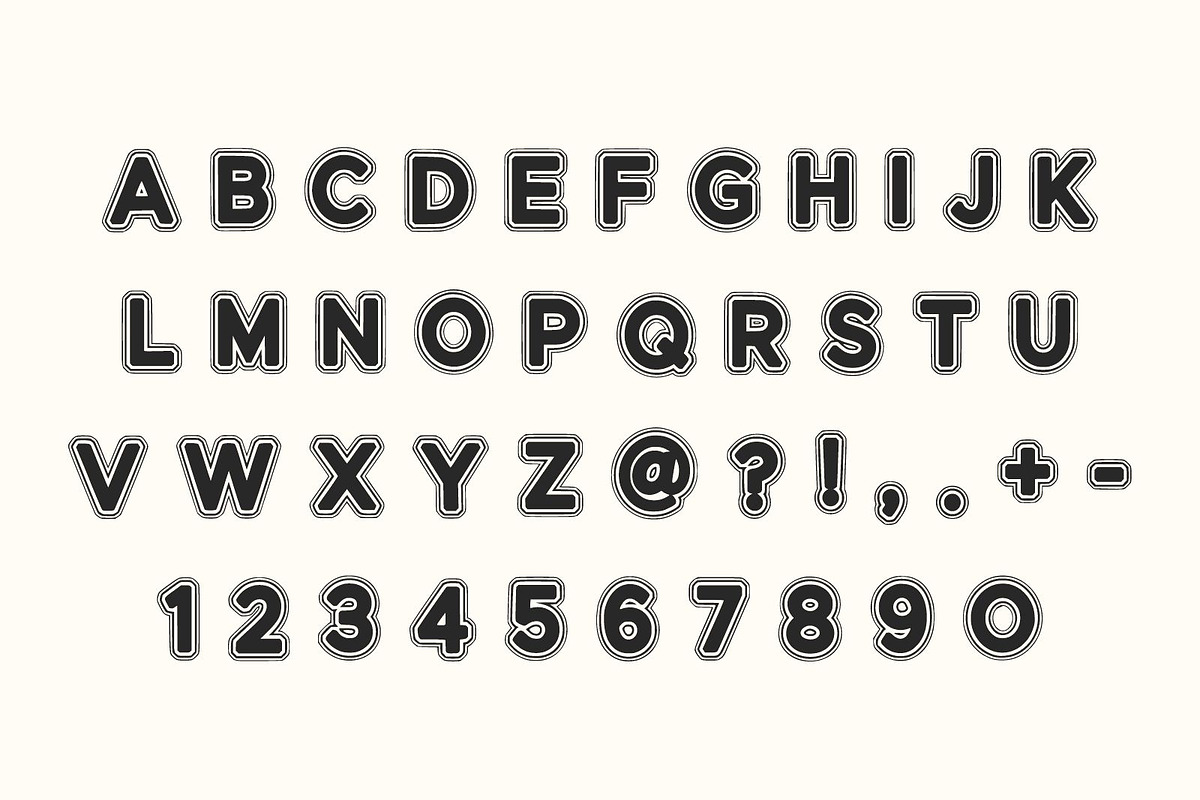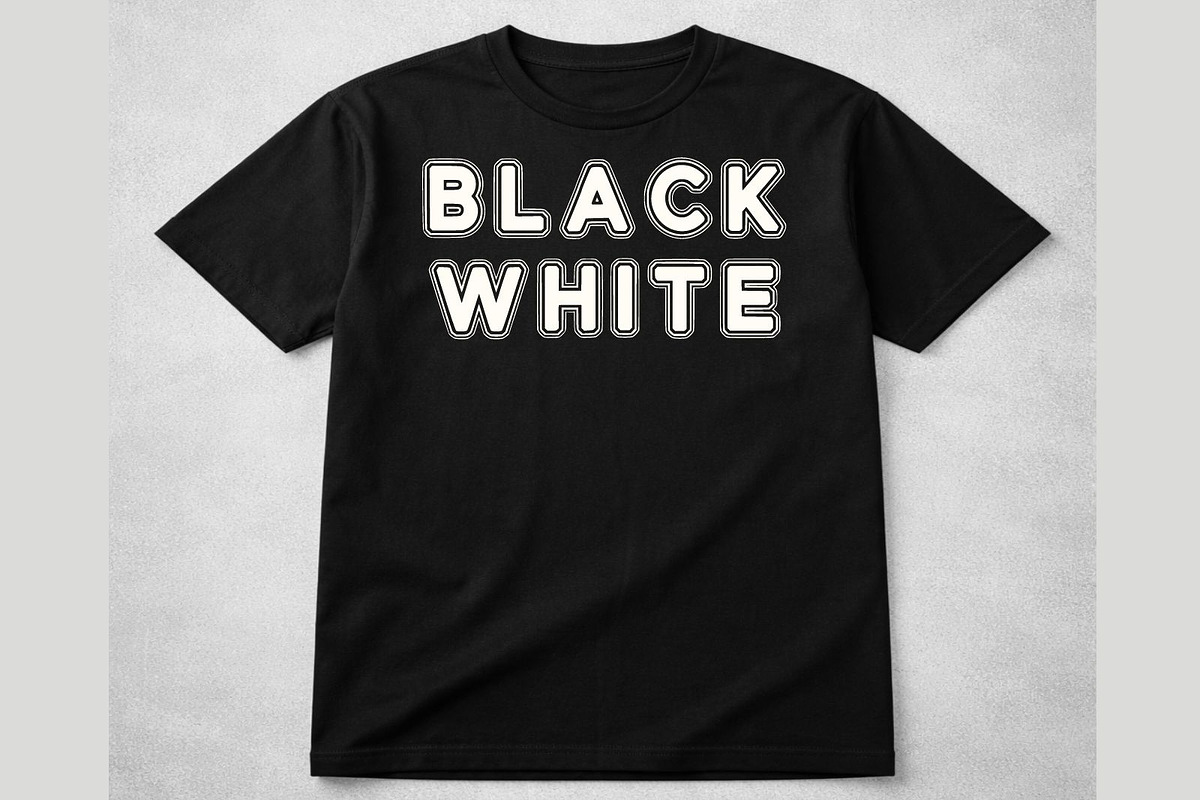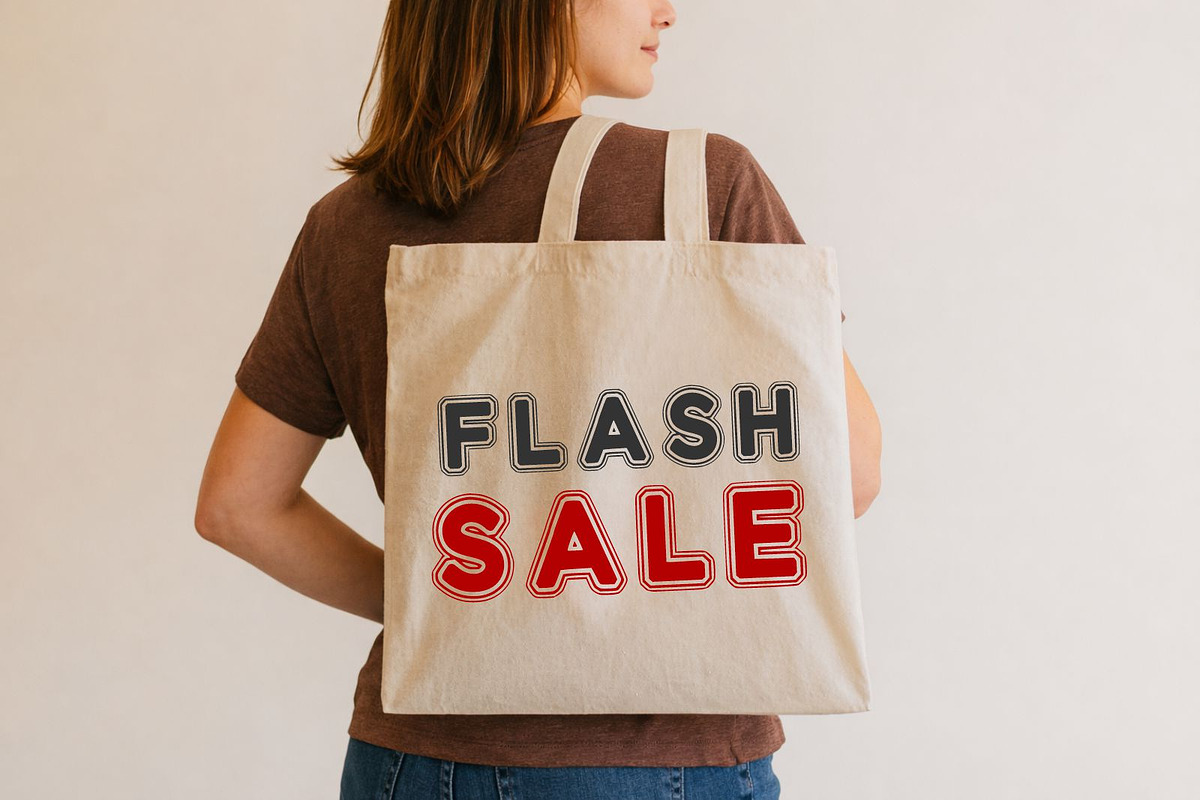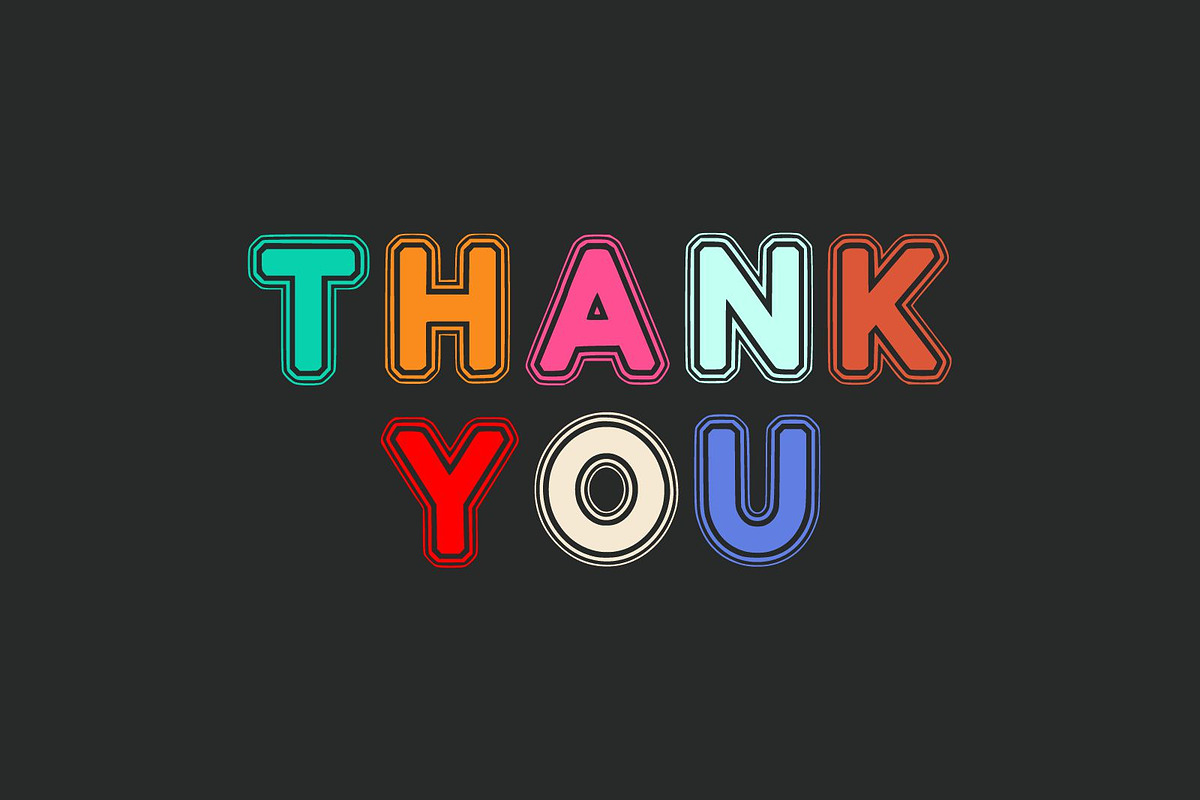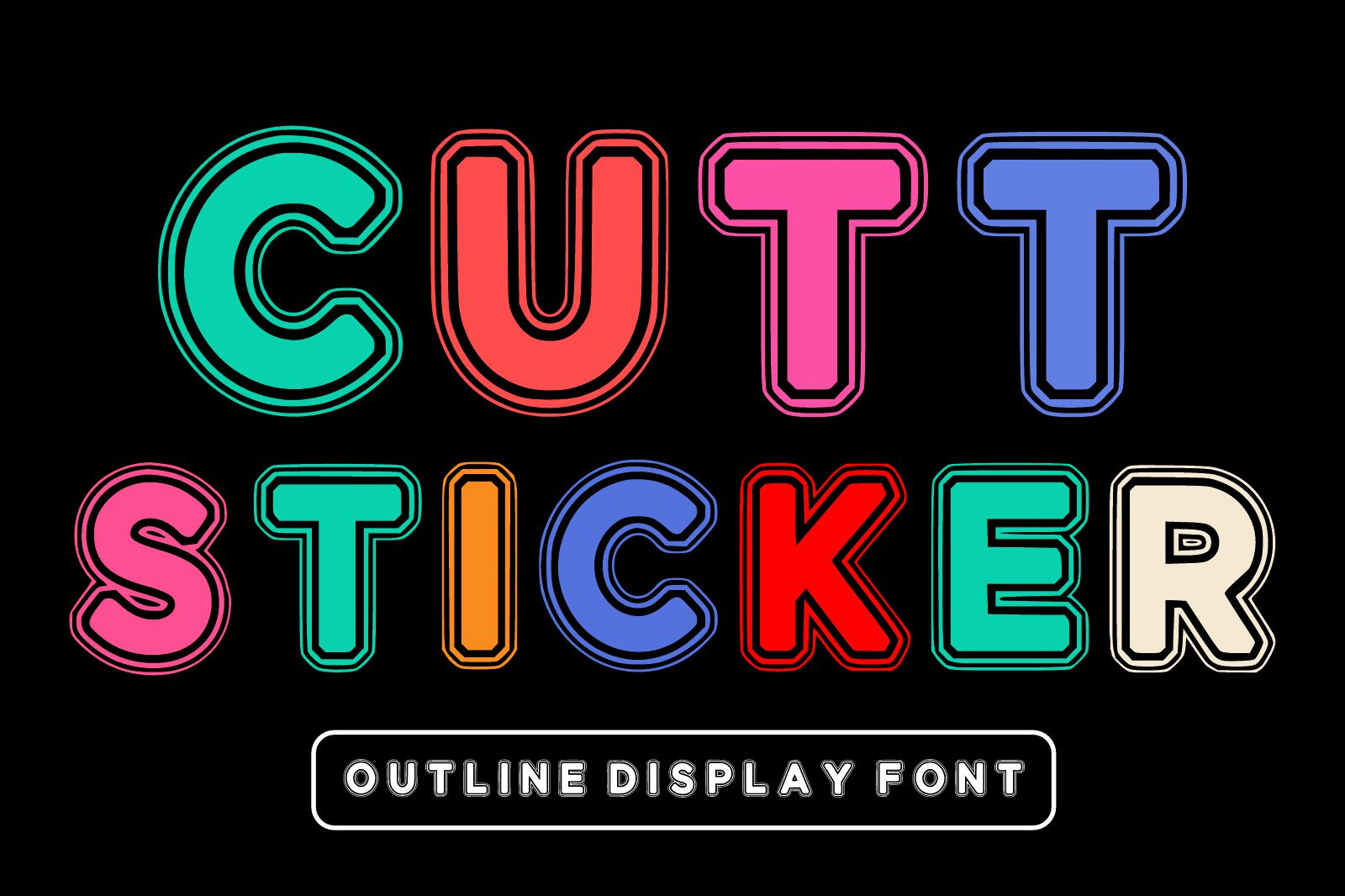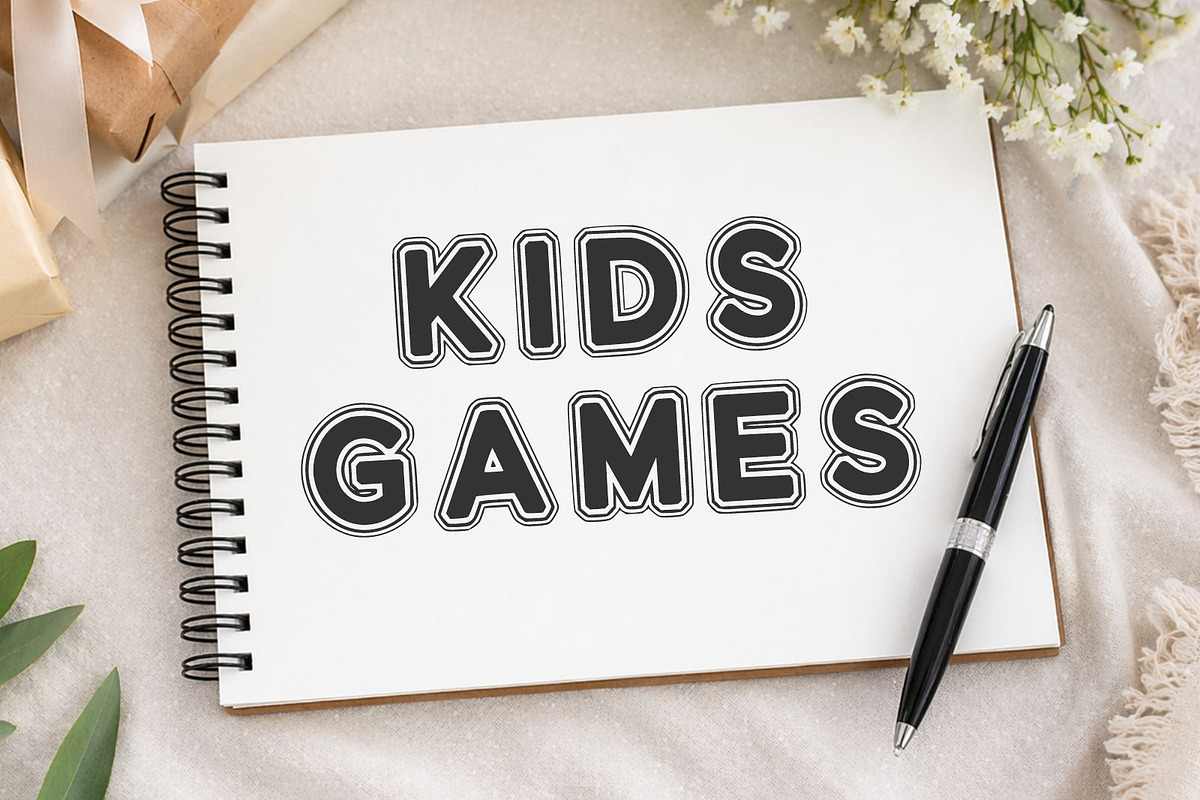
Cutt Sticker | Cute Outline Font
Make your designs pop with Cutt Sticker, a fun and vibrant outline display font inspired by colorful stickers and playful typography. Featuring bold rounded letterforms with thick double-outline details, this typeface creates a cheerful handcrafted look that's perfect for eye-catching headlines, branding, and creative projects.
Designed for maximum impact, Cutt Sticker is ideal for children's products, colorful packaging, logos, social media graphics, classroom materials, Cricut crafts, stickers, sublimation designs, and modern branding. Its friendly appearance makes it suitable for both personal and commercial projects that need a bold, playful personality.
Whether you're designing posters, merchandise, YouTube thumbnails, greeting cards, or printable crafts, Cutt Sticker adds a bright and energetic style that instantly stands out.
Sticker Designs
Kids Branding
Children's Books
Packaging
Product Labels
T-Shirt Designs
Posters & Flyers
YouTube Thumbnails
Birthday Invitations
Greeting Cards
Classroom Decorations